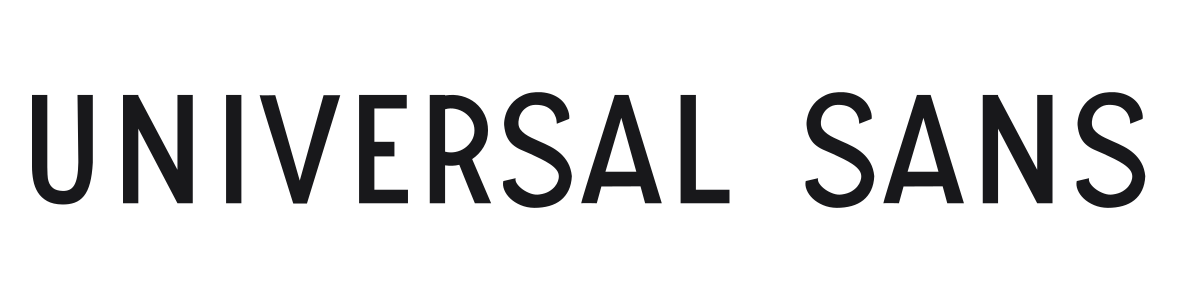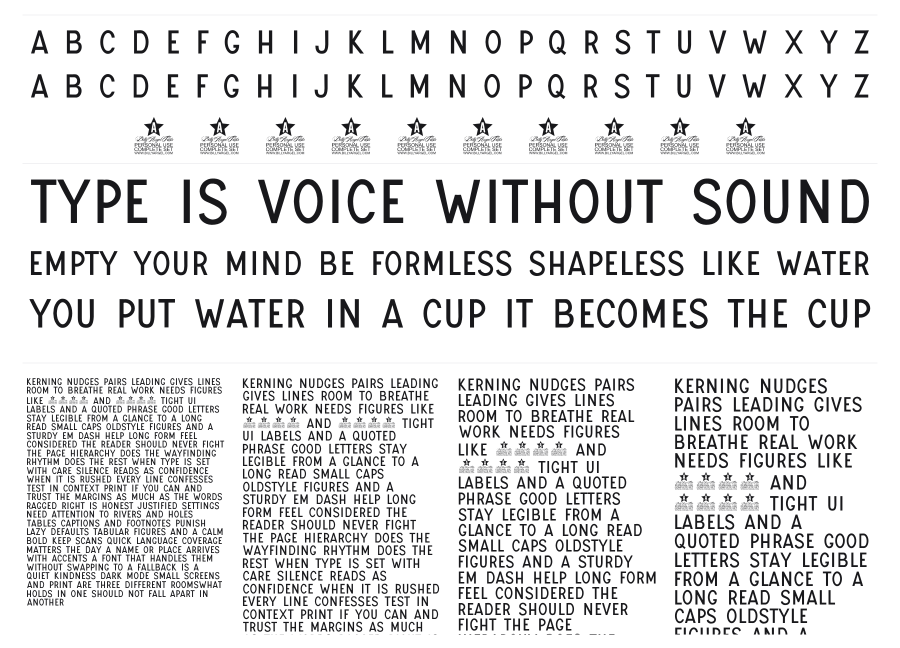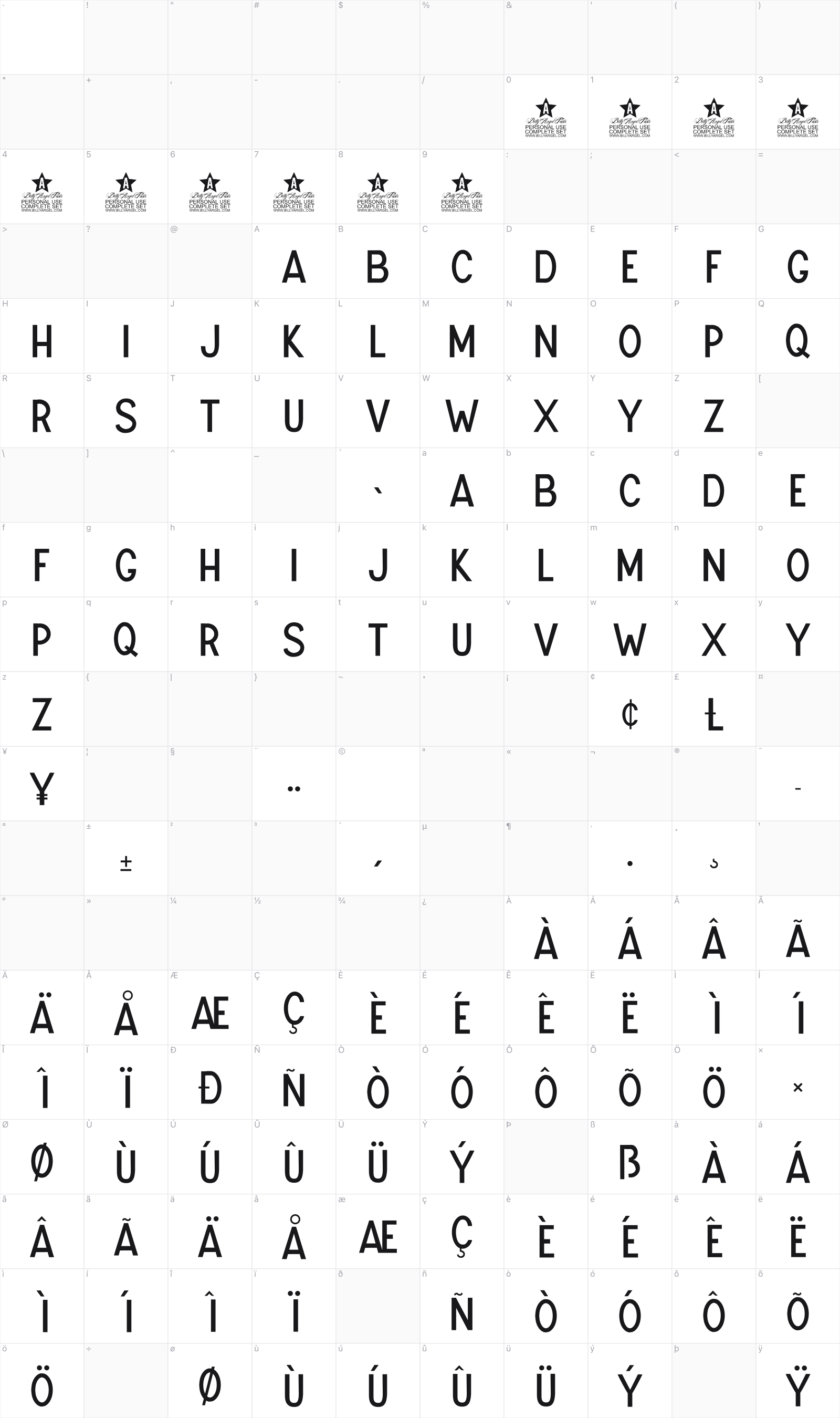
Universal Sans
Universal Sans is a clean grotesque sans with slightly condensed proportions and a composed, near-monoweight stroke. Flat terminals and restrained construction keep it firmly in utilitarian territory, channeling mid-century European commercial type without trying too hard. It works across branding, editorial headlines, and anywhere a neutral but structured voice is needed.